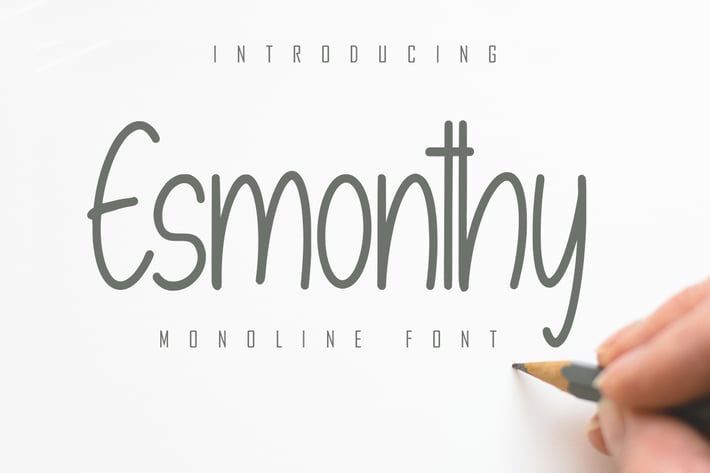
Esmonthy - Monoline Font
Esmonthy is a monoline type font combined with a handwritten so it looks elegant, suitable to support a variety of designs and your business